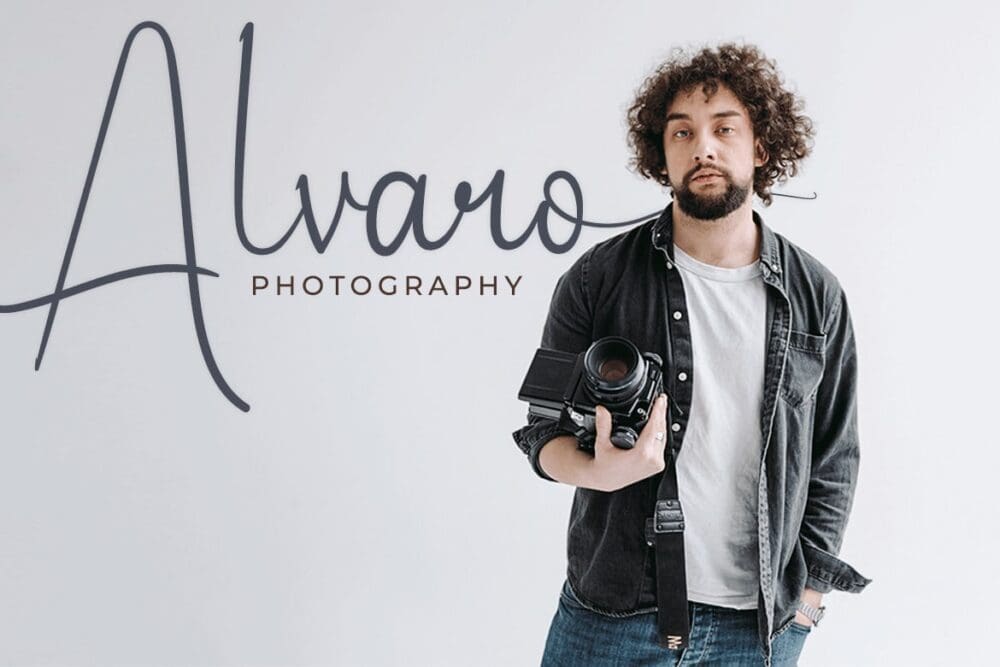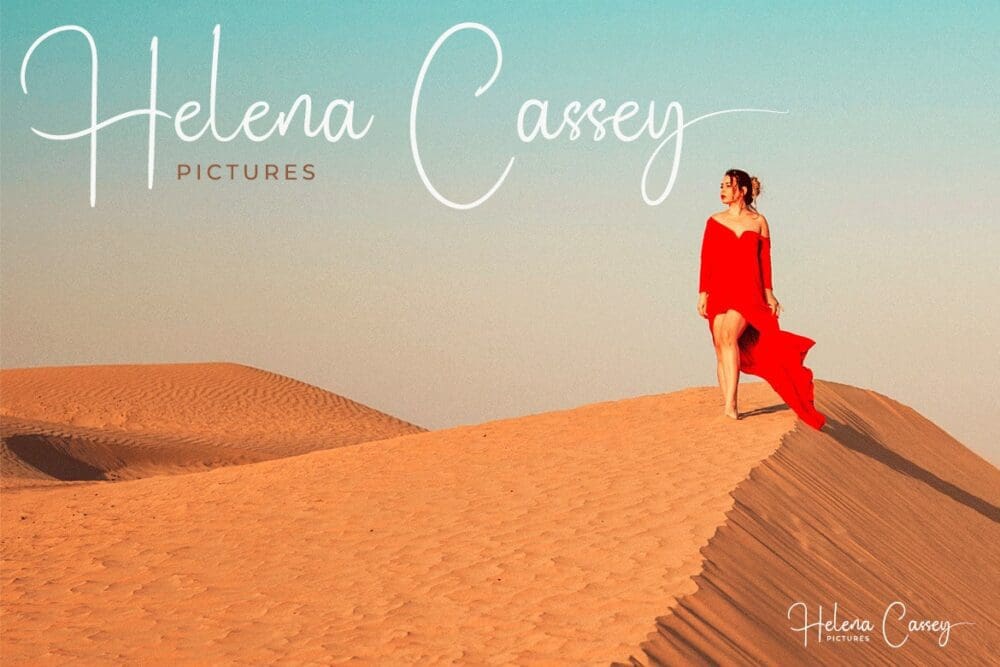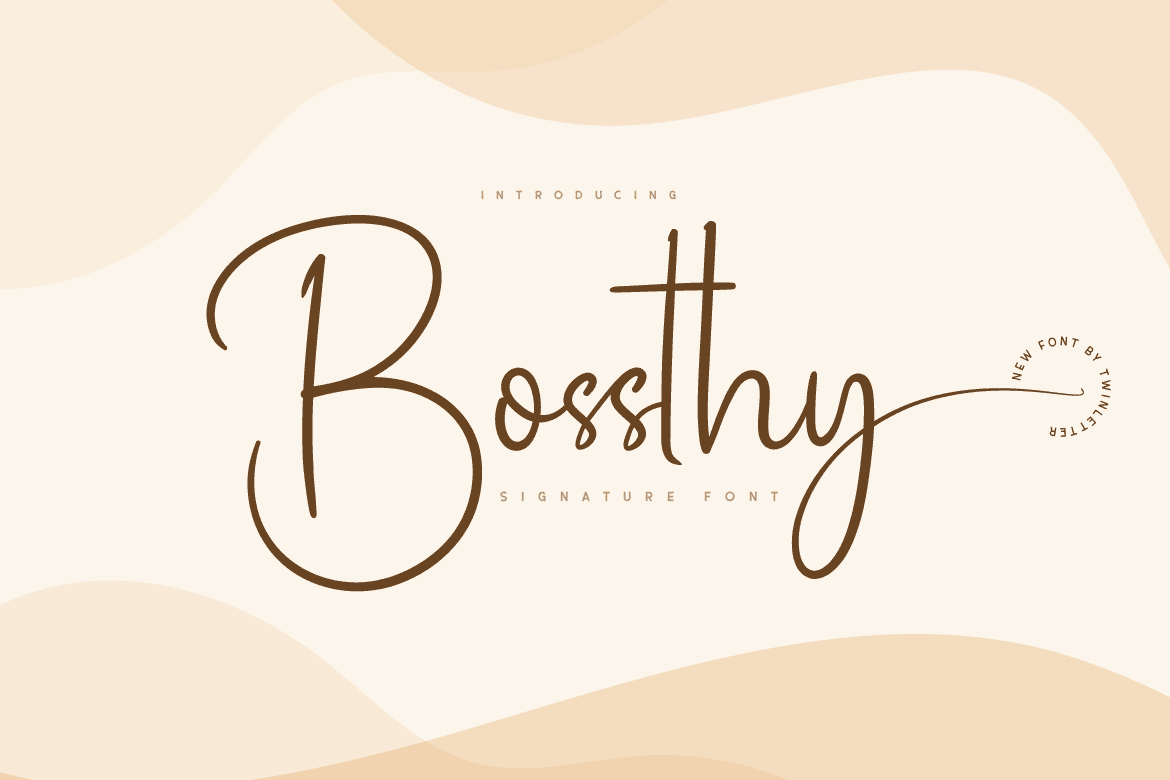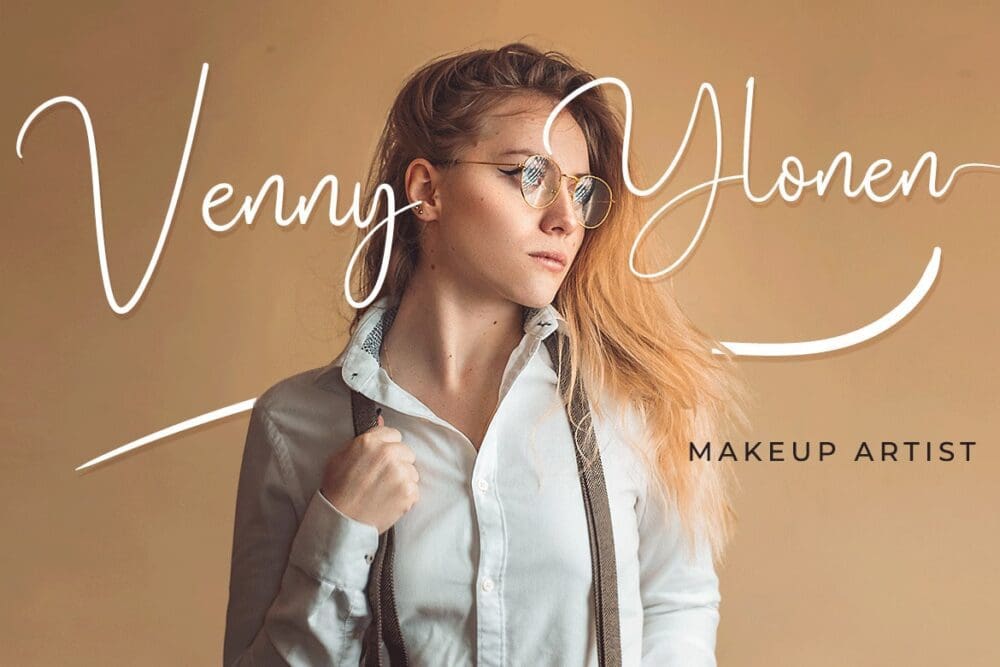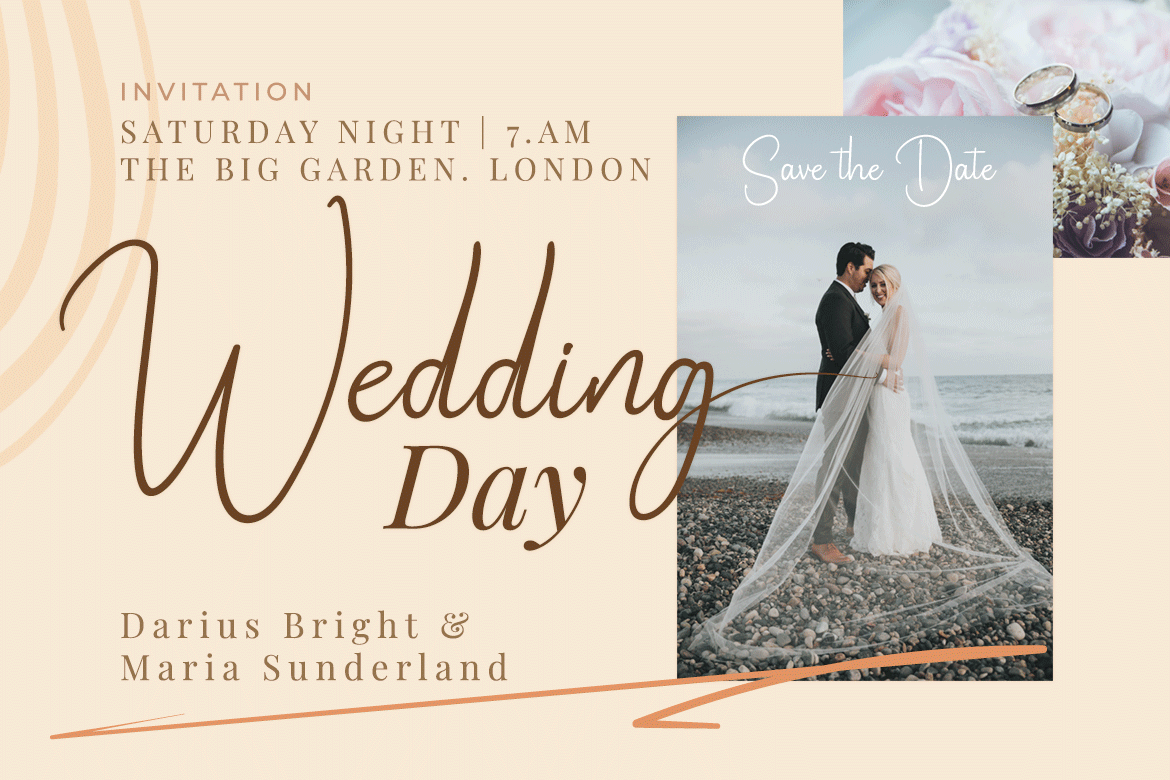
Bossthy Font
Bossthy is a Signature Font with a simple modern theme and has a unique curve in each letter, which is written in natural hand strokes making this font more natural. This font in addition to having a dazzling and elegant shape is also equipped with various alternative options that make it easier for you to create beautiful and extraordinary designs.